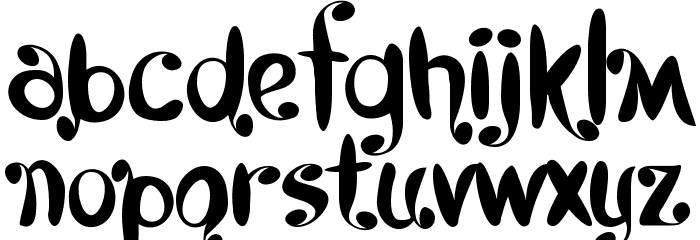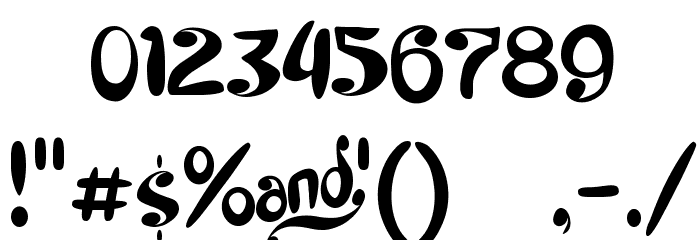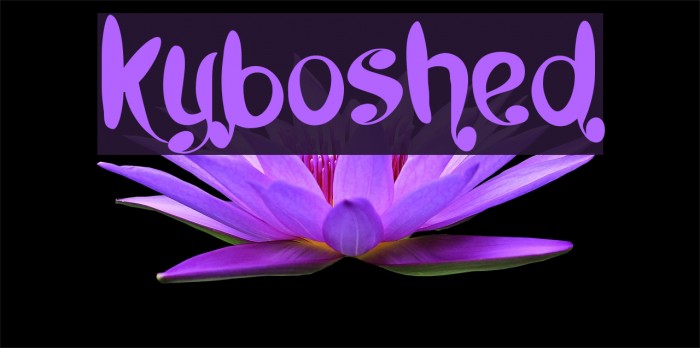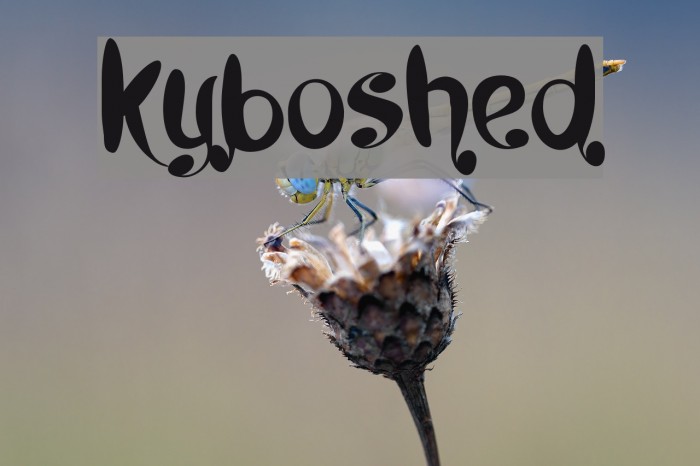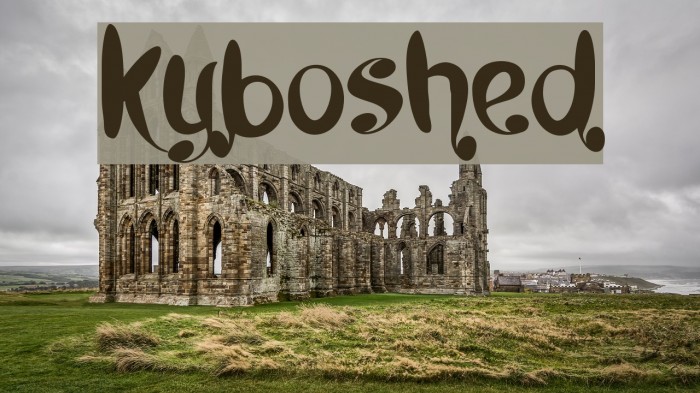
Kyboshed Font
This font features a playful and whimsical design, characterized by its bold and rounded letterforms. Each character is adorned with unique, decorative elements that give it a lively and dynamic appearance. The strokes are thick and consistent, providing a strong visual impact. The font maintains a sense of movement and energy, making it ideal for creative and artistic projects. The overall style is both modern and decorative, with a touch of retro flair. Its distinctiveness makes it suitable for attention-grabbing headlines and titles.
A bold, playful font with decorative, rounded letterforms.
- Proposed Projects: Ideal for children's books, playful branding, creative posters, and artistic invitations.
- Overall Style: Playful, Decorative